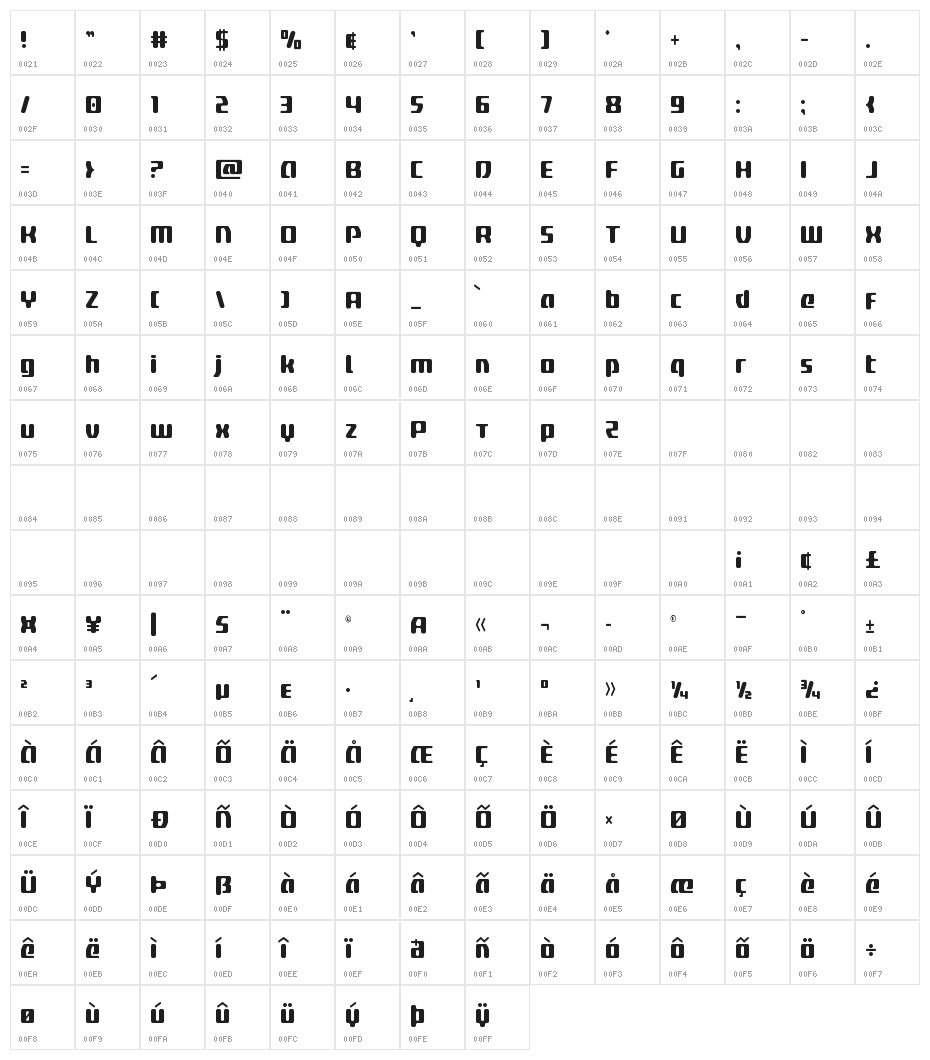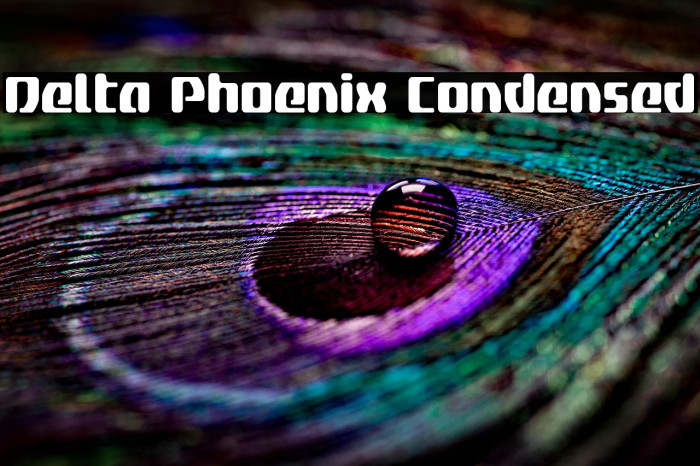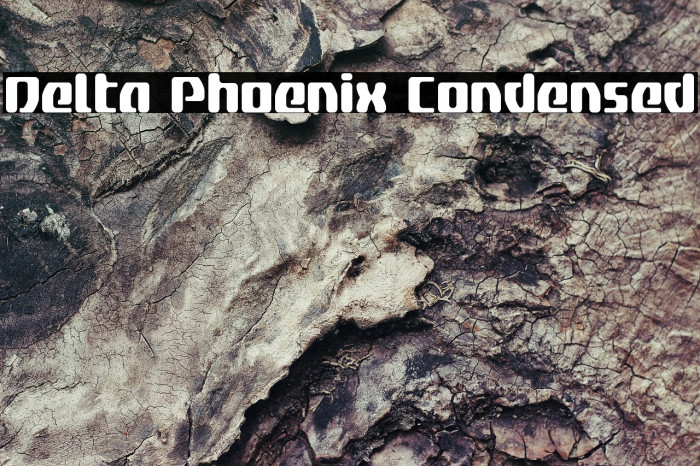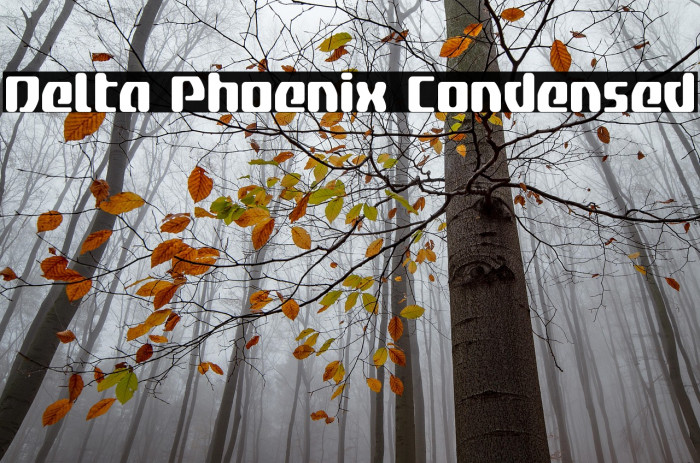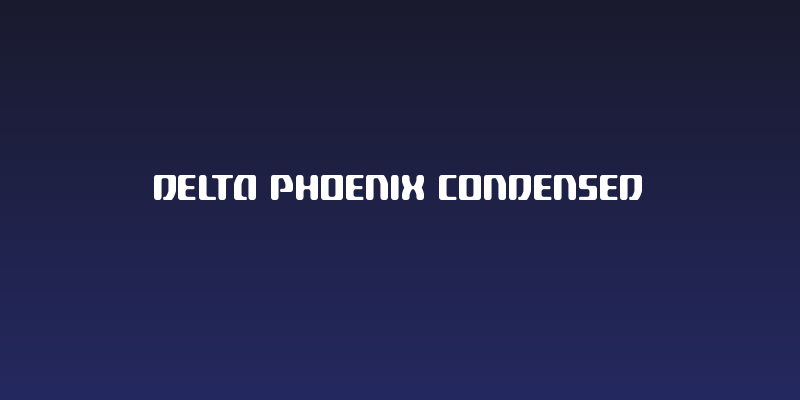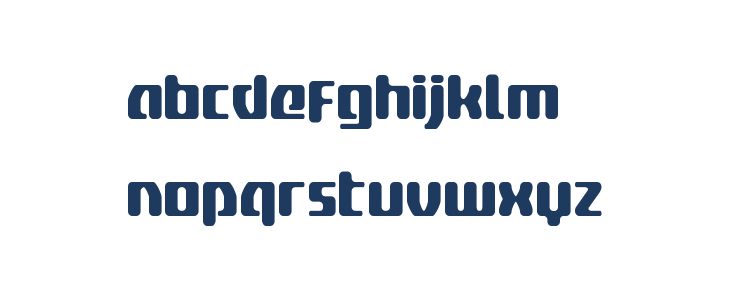
Delta Phoenix Condensed Font
Delta Phoenix Condensed Description
This font features a bold and modern design with a condensed structure, giving it a strong and impactful presence. The characters are rounded with a consistent stroke width, creating a uniform and cohesive look. The uppercase and lowercase letters maintain a similar style, enhancing readability while retaining a unique flair. The numerals are clear and distinct, making them suitable for various applications. Special characters are well-integrated, offering versatility for different uses. The overall design is sleek and contemporary, making it ideal for projects that require a bold statement.
| Proposed Projects | Ideal for branding, headlines, posters, and digital media where a strong visual impact is desired. |